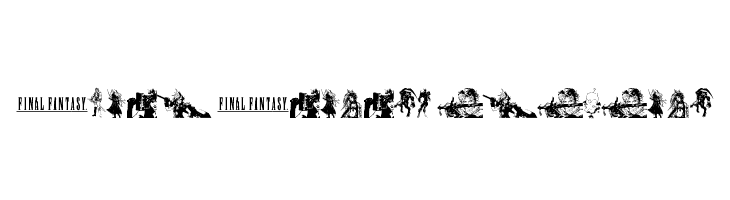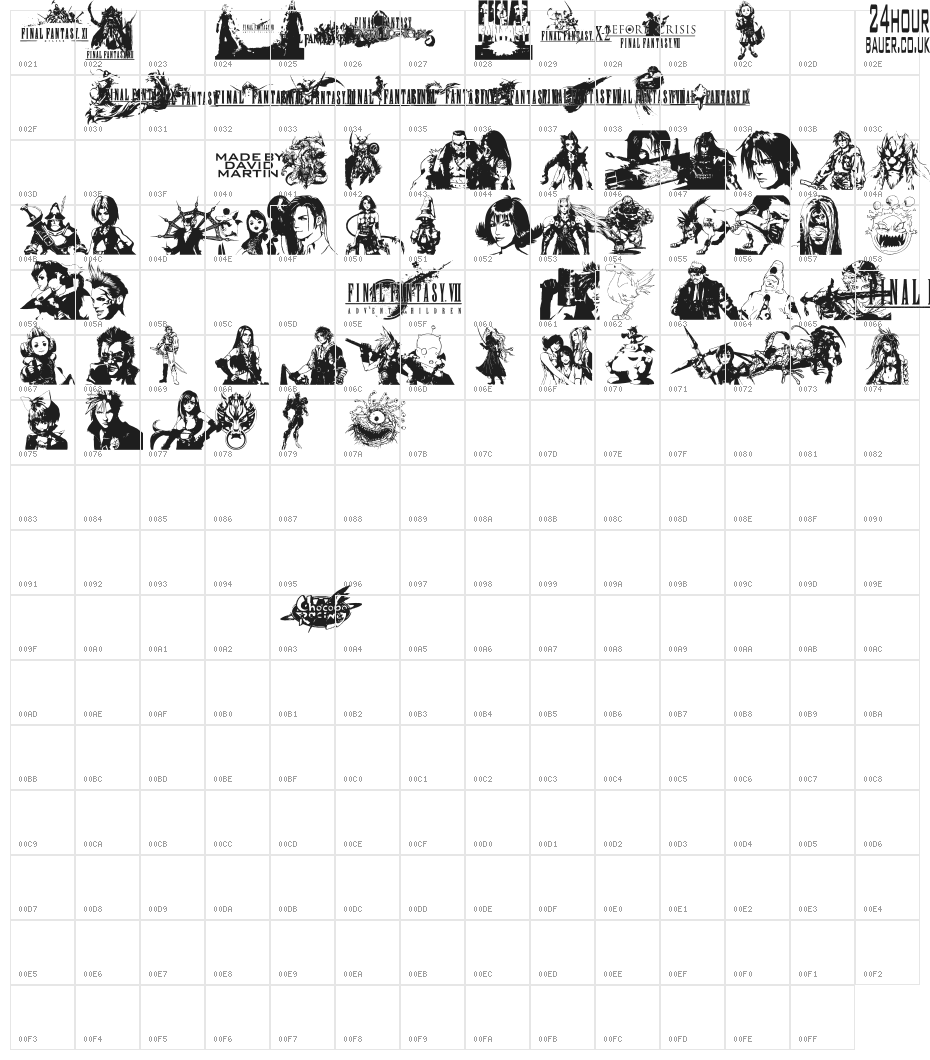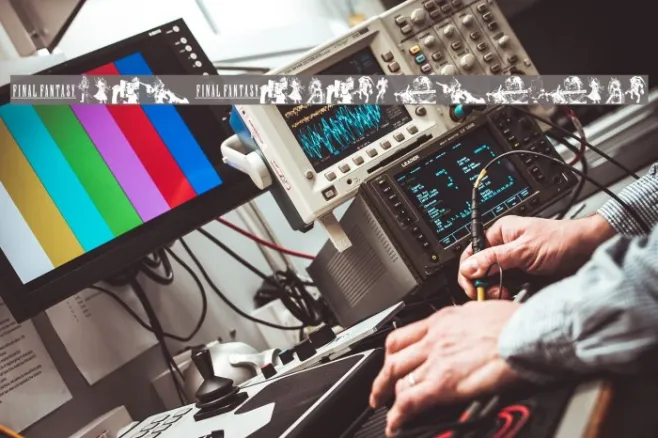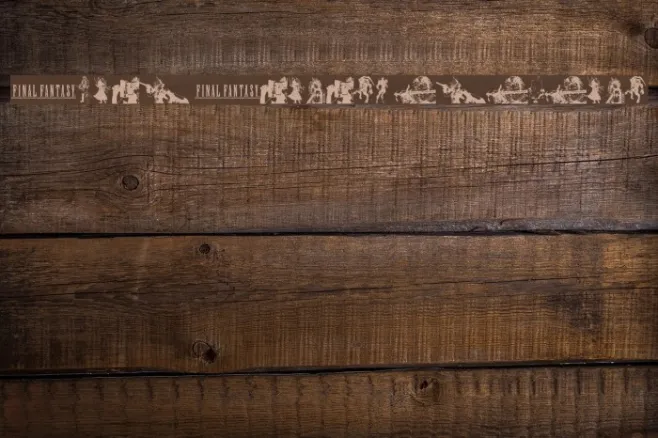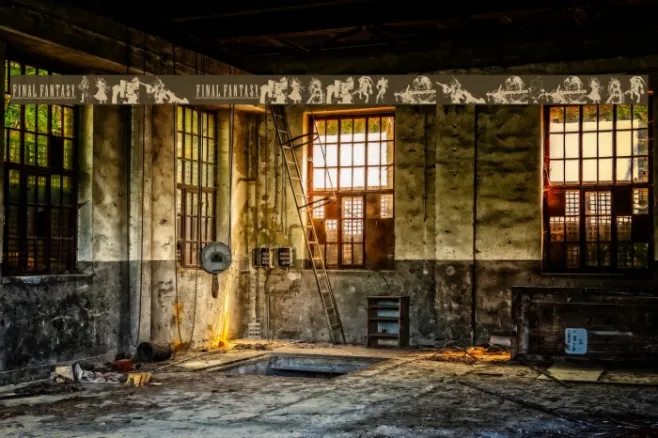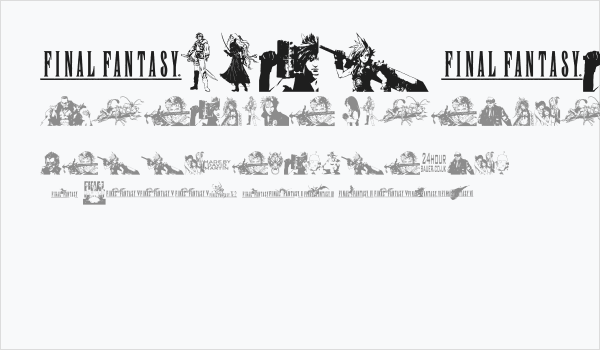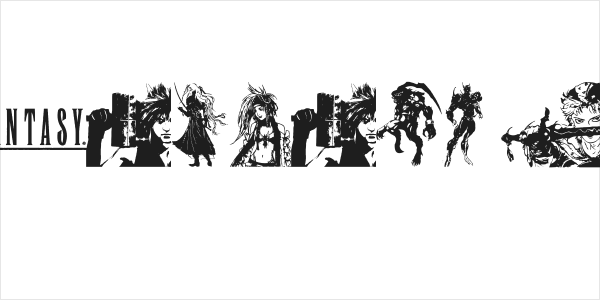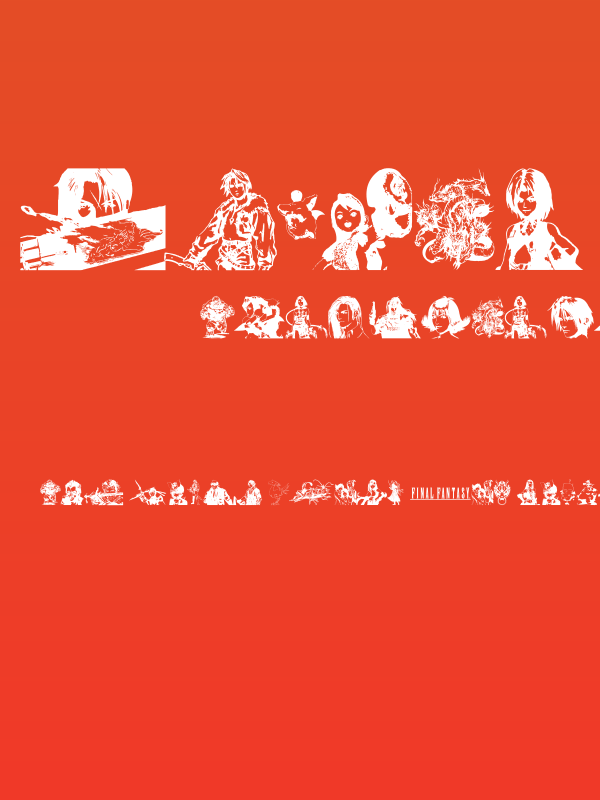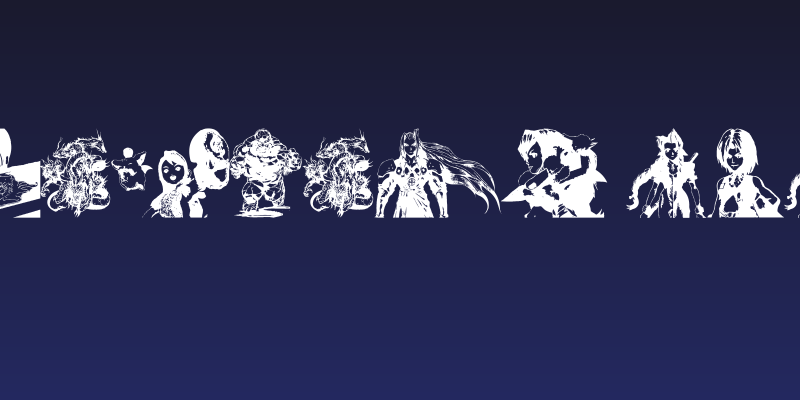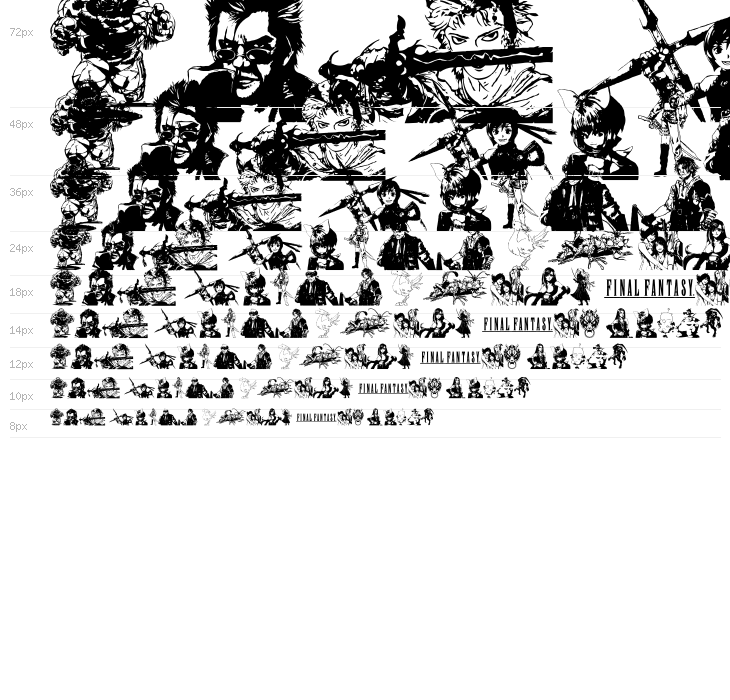
final fantasy elements Font
final fantasy elements Description
A highly decorative, illustrative font featuring detailed black-and-white silhouettes and character art inspired by the Final Fantasy video game series, with each glyph representing a different character, creature, or logo from the franchise. The typeface is not traditional, as most characters are replaced by intricate illustrations rather than standard letterforms.
| Overall Style | Decorative, Thematic, Illustrative |
| Use Case | Logos, Headlines, Posters, Themed graphics |
| Proposed Projects | Fan art posters, themed invitations, video game event materials, collectorΓ’β¬β’s items, cosplay signage, and decorative headings for fan sites. |